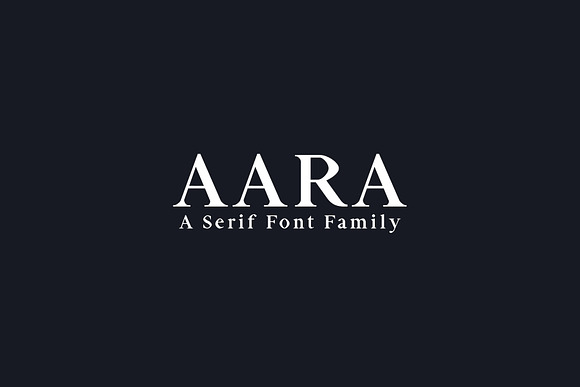
Aara Serif Font Family Pack
This refined typeface is perfect for editorial design, book publishing, luxury branding, cultural institutions, art galleries, premium magazines, academic journals, sophisticated websites, and elegant print applications.
What makes this font exciting is its cultural sophistication combined with editorial excellence, offering designers a distinguished typeface that captures intellectual refinement while delivering exceptional readability and cosmopolitan contemporary appeal.
The Aara Serif font family includes extralight, light, regular, medium, semibold, bold, and heavy variations, providing complete editorial design solutions for creating sophisticated cultural visual identities.
Aara Serif Font Family Pack features carefully crafted editorial styling with authentic cultural character that conveys genuine artistic expertise. Each weight has been optimized for different publishing functions, with precisely balanced proportions and refined serif details that enhance the sophisticated aesthetic. The font's editorial qualities make it particularly effective for museums and literary applications.
Professional designers choose Aara Serif Font Family Pack for projects requiring authentic cultural credibility and editorial atmosphere. Its intellectual heritage makes it exceptionally well-suited for publishing houses, cultural centers, and artistic organizations. The font's versatile weight system allows designers to create elegant typographic hierarchies, from subtle text elegance to bold cultural authority.
The complete Aara Serif Font Family Pack package offers extensive cultural character sets and advanced OpenType features that enhance the editorial aesthetic. Advanced typography controls allow designers to create complex literary effects with multiple weight combinations. This comprehensive cultural toolkit ensures designers have everything needed to create authoritative editorial communications that celebrate the enduring power of literature and intellectual discourse.